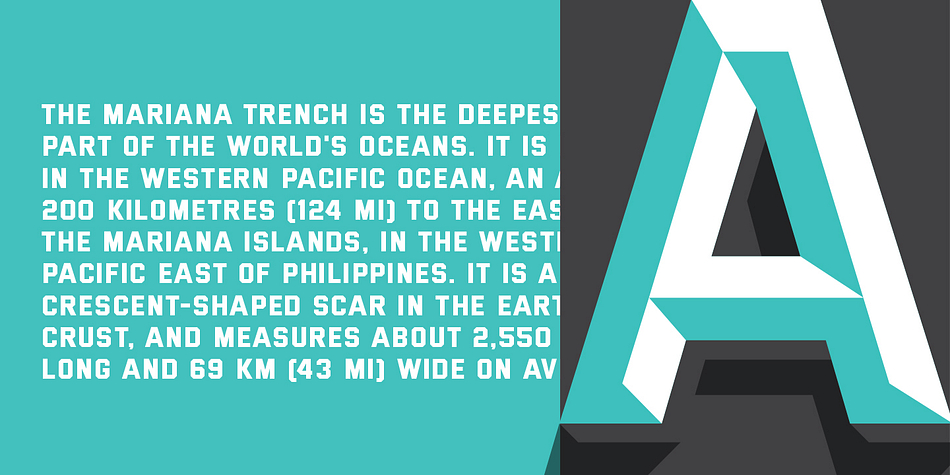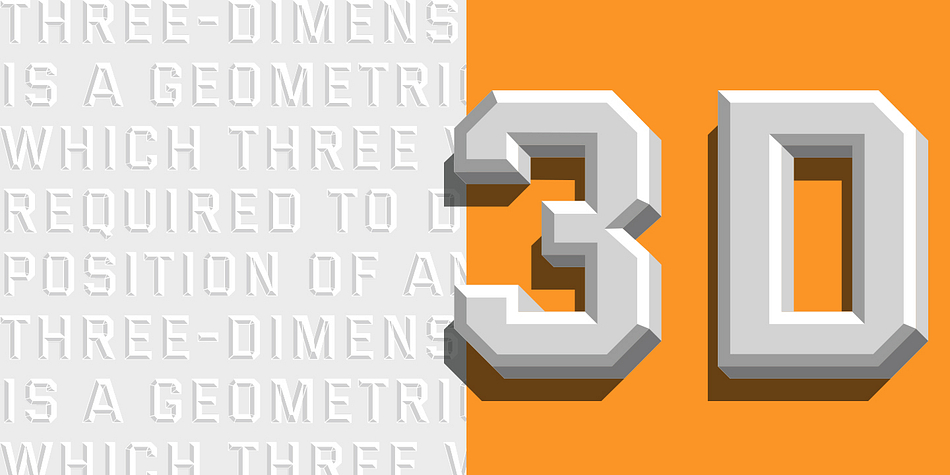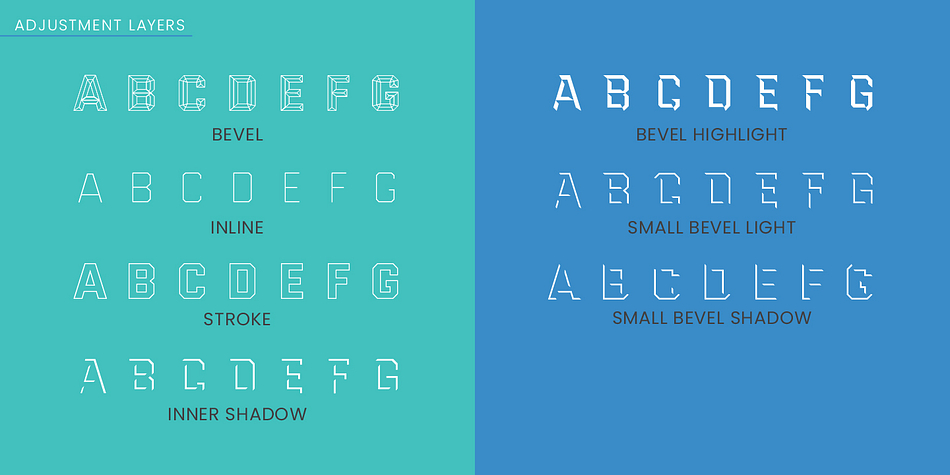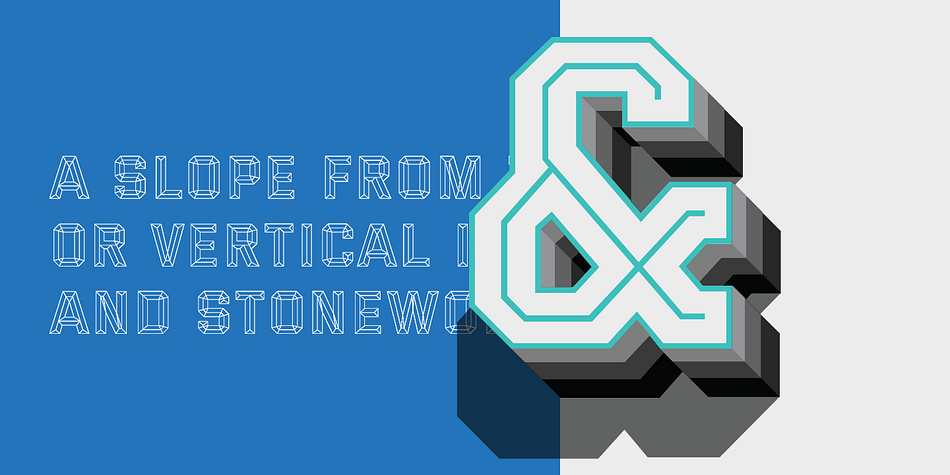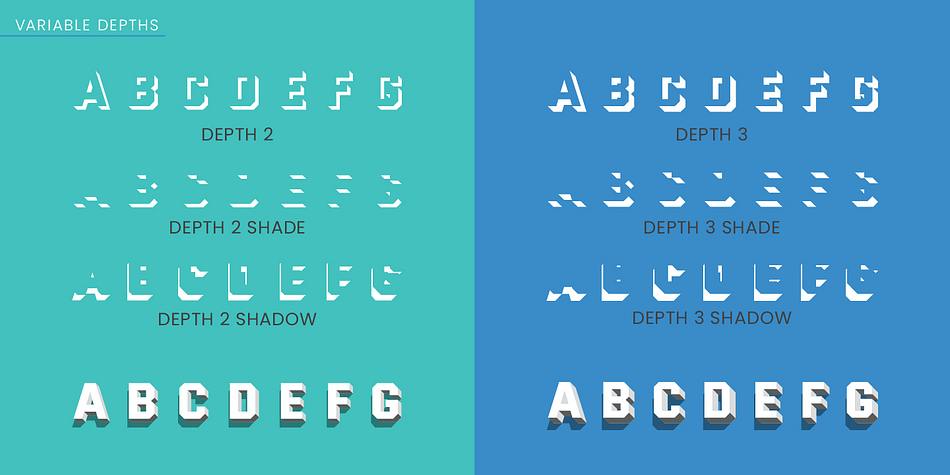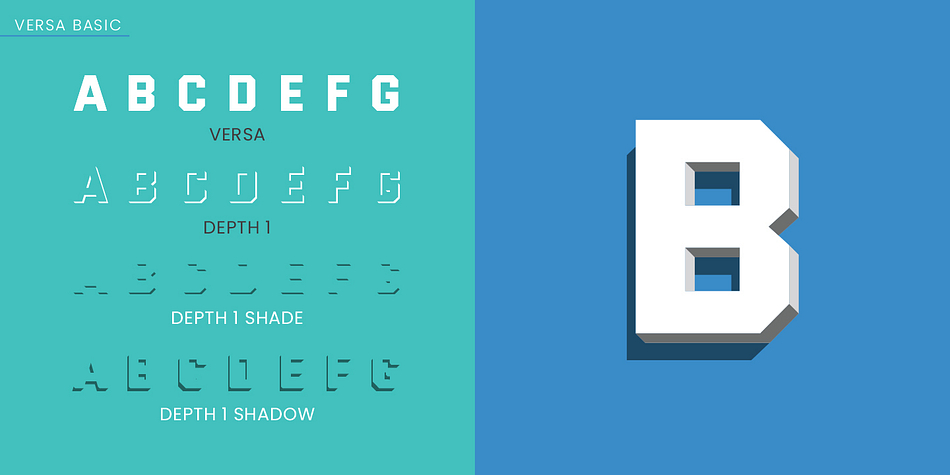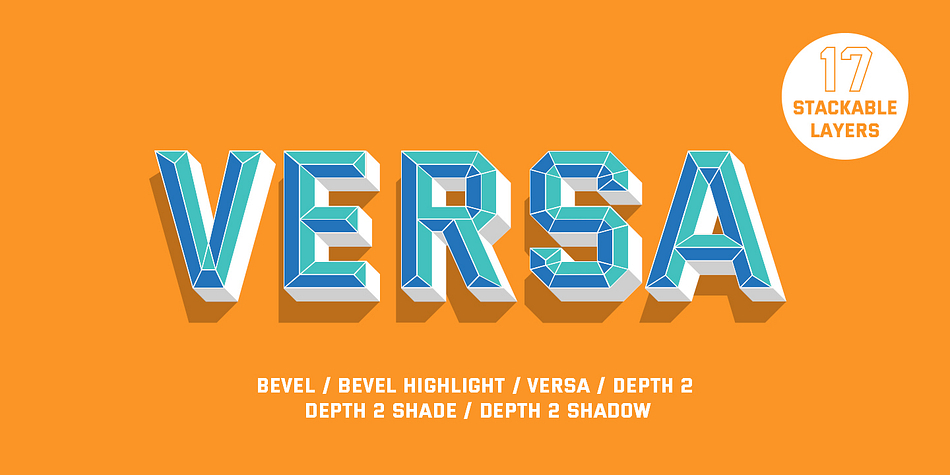
Versa is a display sans font family. This typeface has seventeen styles and was published by Studio James Lewis.
In a response to the age old question, “How can I make this project stand out?” Award winning type designer and Lettering artist James Lewis brings you VERSA.
With 17 stackable layers, Varying depths, and matching shadows, Versa is the first of its kind. Drawn with versatility in mind, James has created a type system that allows for customisation like you’ve never seen before, making this the only 3D font you will ever need.